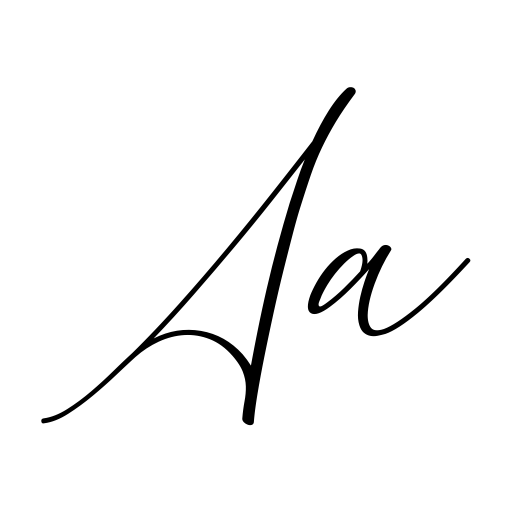
Bestina Signature is a delicate and elegant script font that mimics natural handwritten signatures with its thin, flowing strokes and graceful letterforms. Its light weight, smooth curves, and slightly irregular lines give it a personal, sophisticated feel, perfect for branding, invitations, and stylish editorial designs that require a modern yet intimate touch. This font works best in headlines and logos where a refined, approachable look is desired.
Bestina Signature Font
| Designer | Iqbal Pauji |